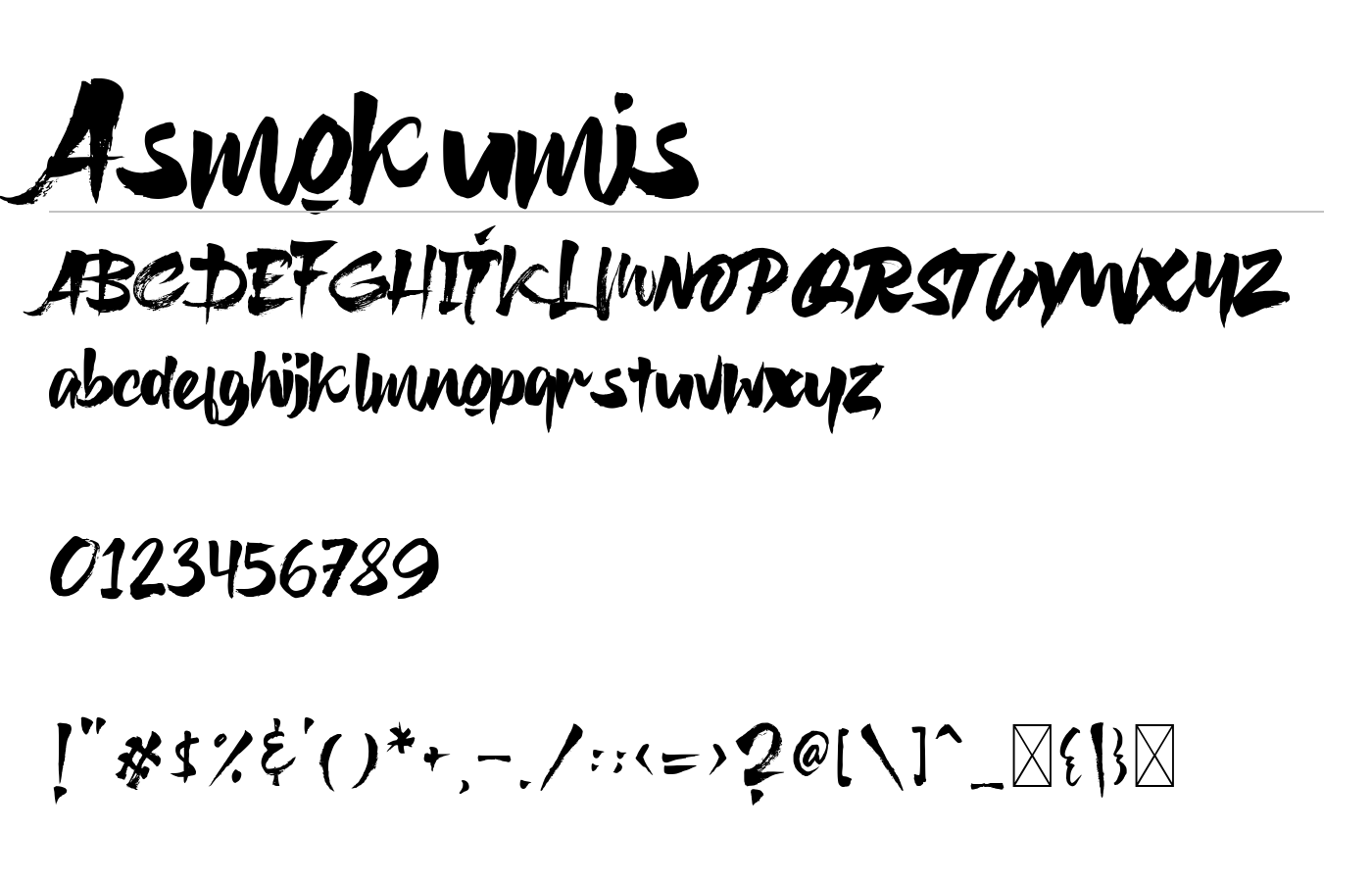
Asmokumis is a bold, expressive script font with a hand-painted brush style that feels energetic and artistic. Its irregular strokes and textured edges give it a casual, creative personality perfect for dynamic logos, posters, and branding that seeks a raw, authentic vibe. This font shines in eye-catching headlines and designs where a lively, spontaneous look is desired.
Asmokumis Font
About Asmokumis Font
| Font family | Asmokumis Font |
| Designer | Motion Tail Studio |